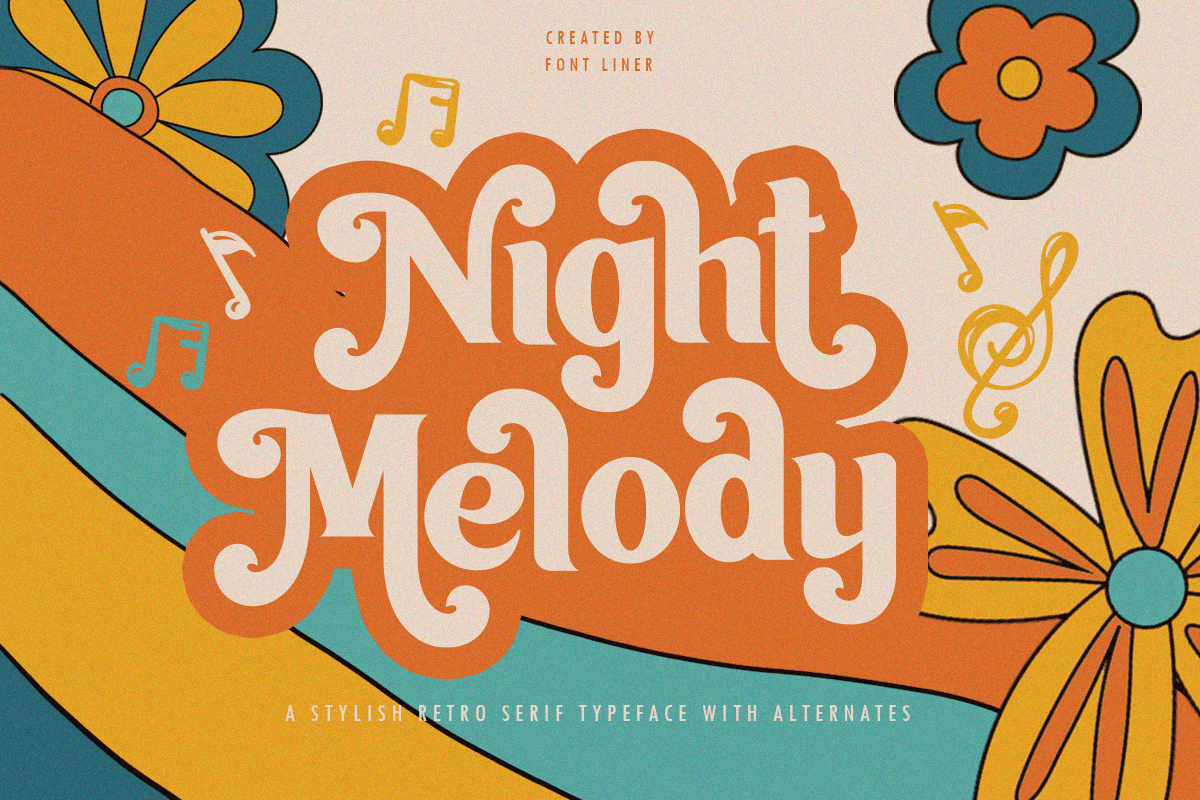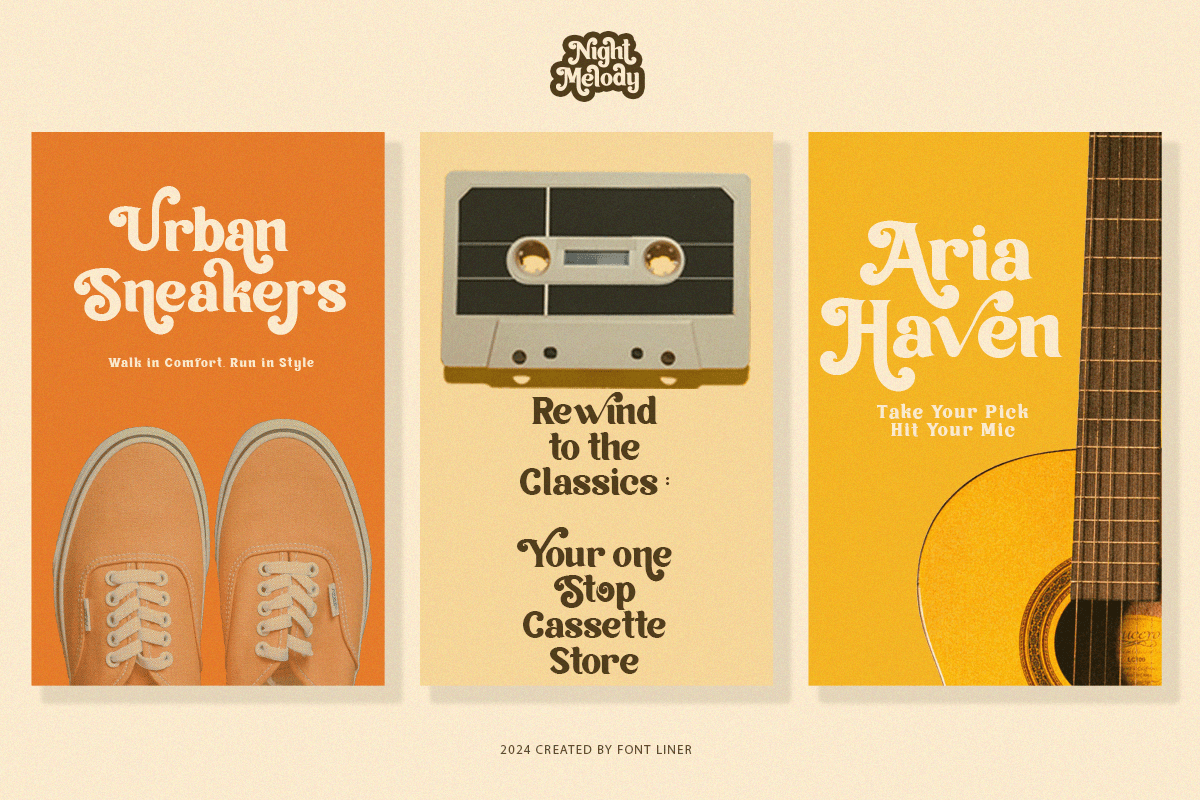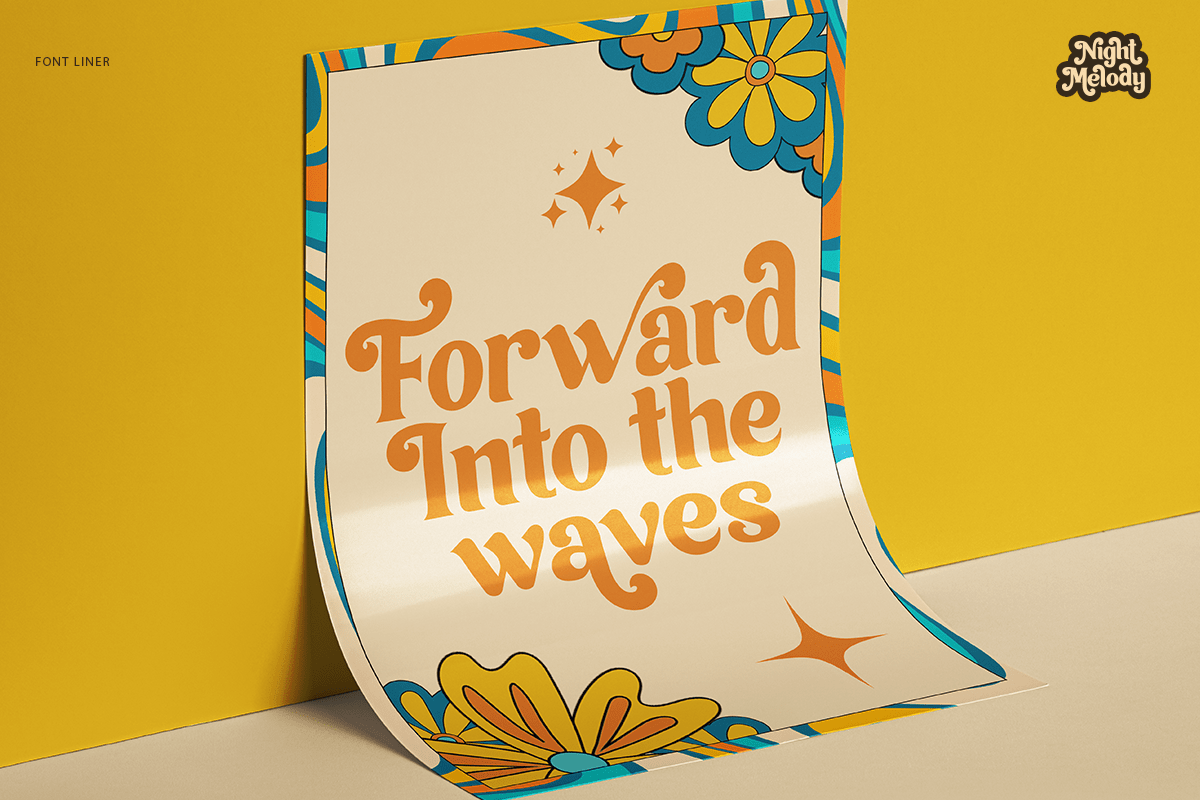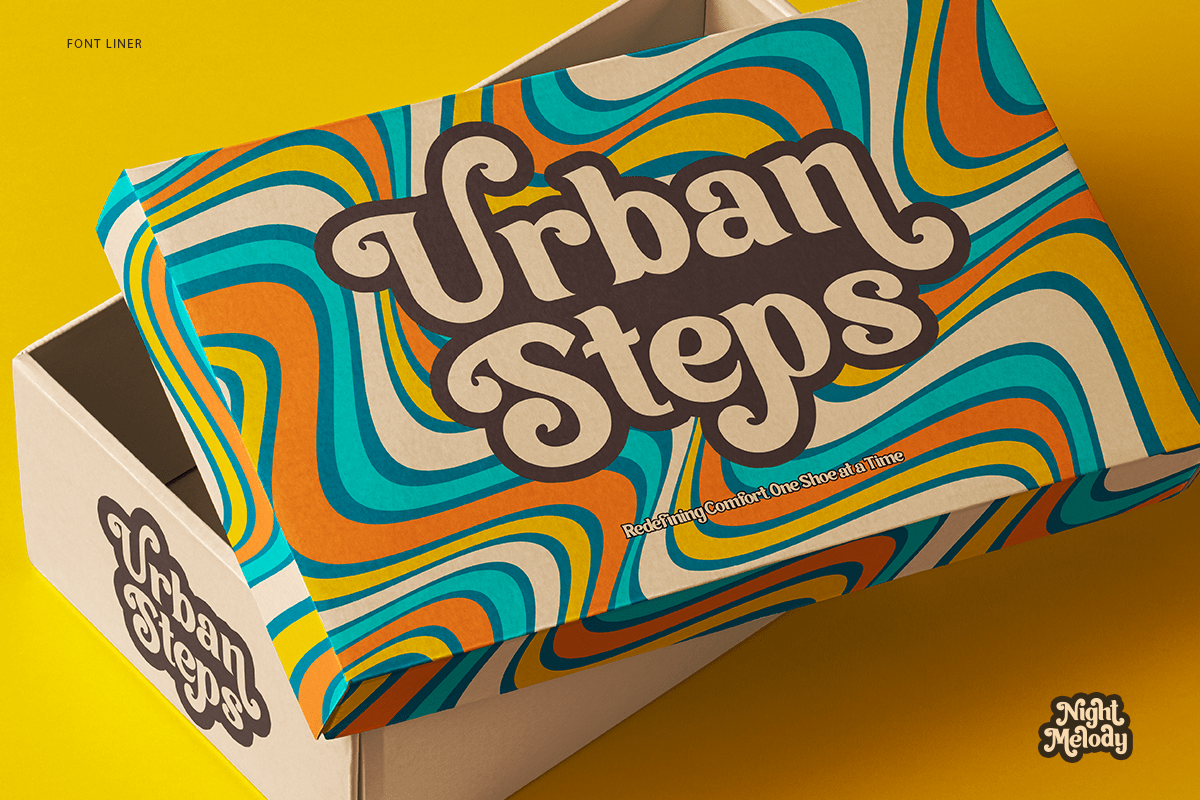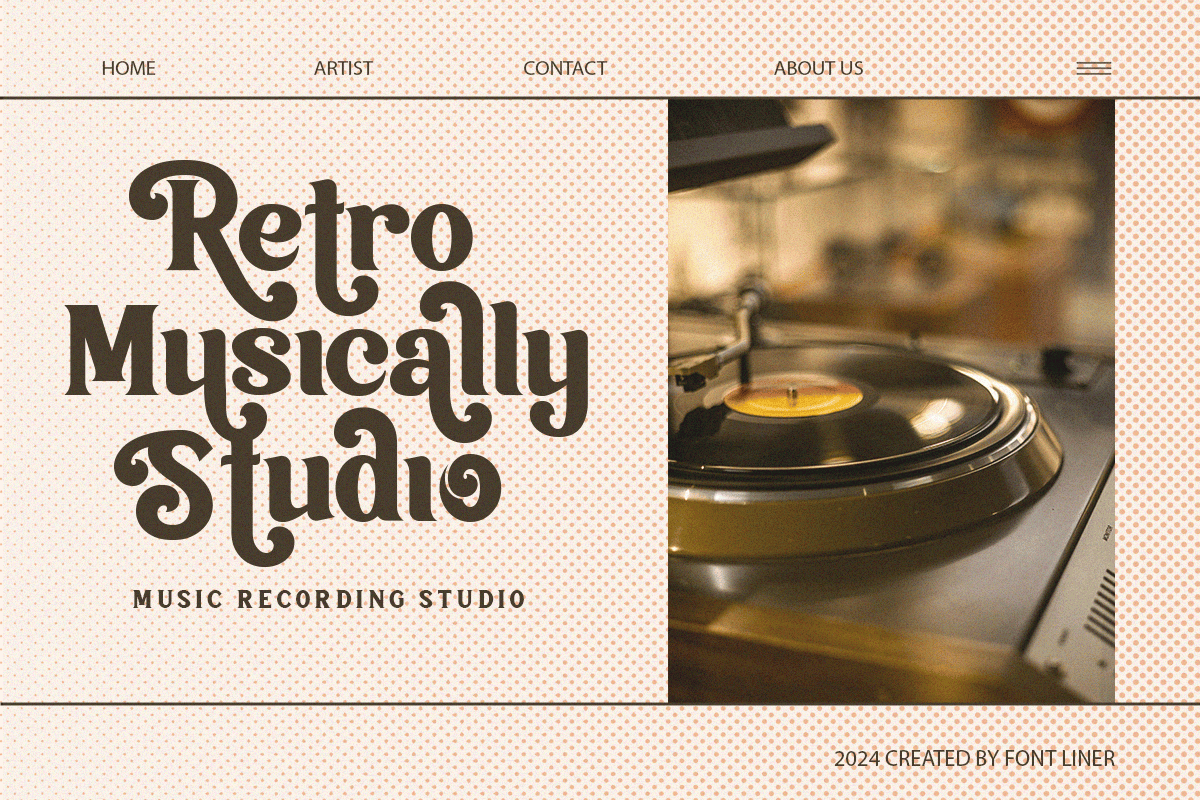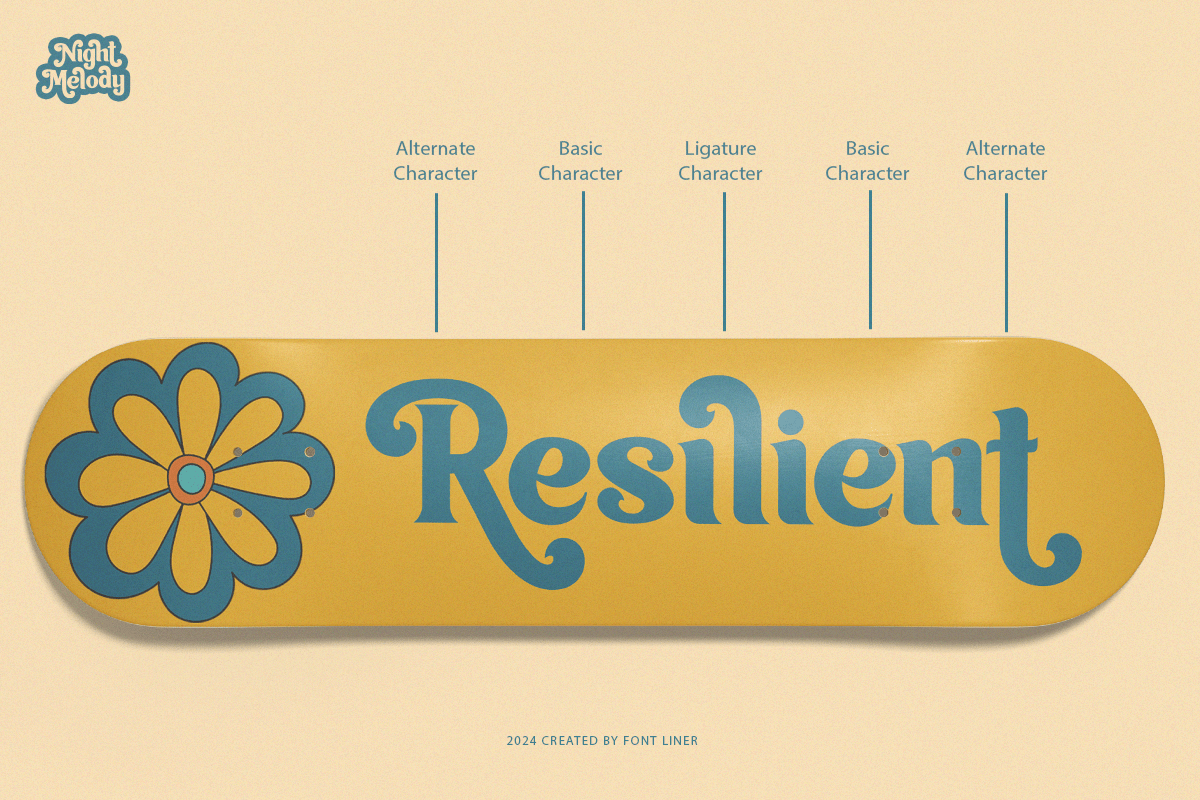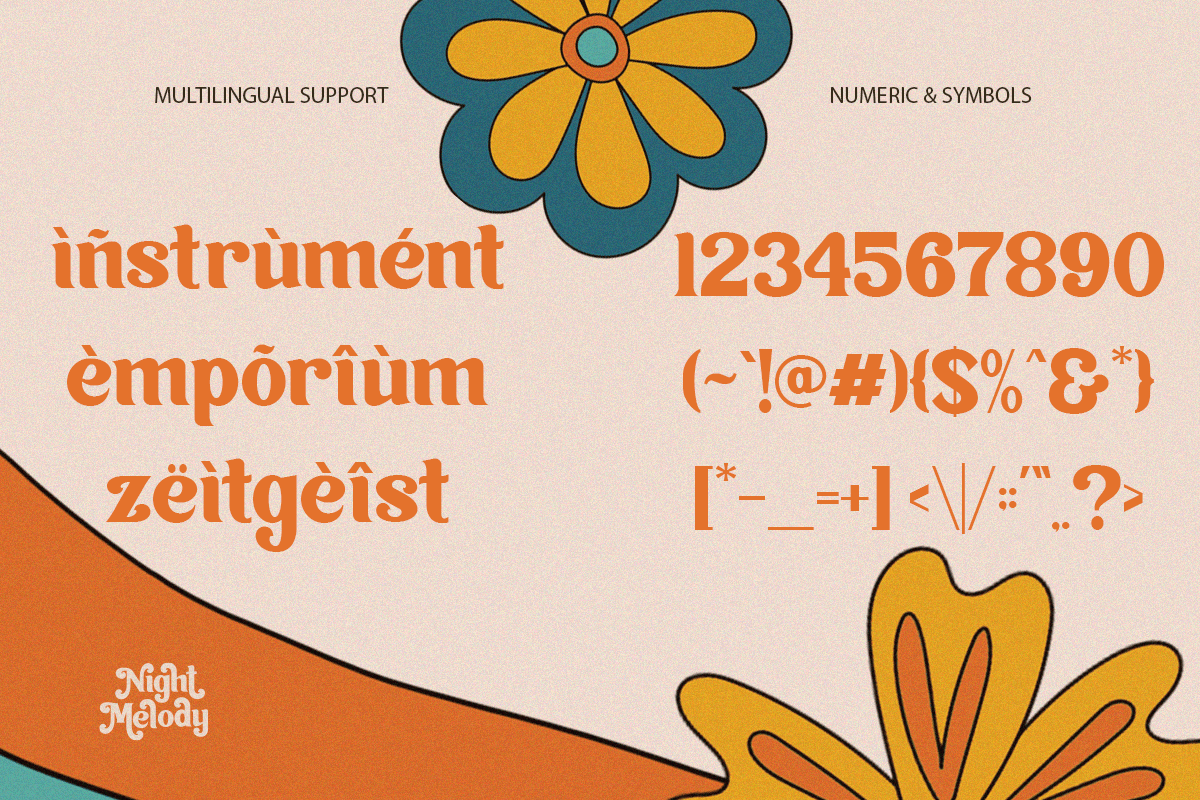
Night Melody – Retro Display Serif Font
Night Melody is a retro display serif font inspired by the vibrant spirit of the 70s, vintage music culture, and psychedelic typography. Featuring bold curvy letterforms, decorative alternates, and expressive retro details, this typeface creates a nostalgic yet fresh visual identity that instantly attracts attention. Its playful personality and handcrafted charm make it ideal for designers who want to bring warmth, creativity, and timeless style into their projects.
Perfect for music branding, posters, album covers, cafés, restaurants, packaging, fashion collections, lifestyle brands, product labels, magazines, social media, event promotions, and editorial layouts, Night Melody delivers striking typography across both print and digital media. Whether you’re designing vintage-inspired logos, colorful packaging, promotional graphics, or eye-catching headlines, this font provides an unforgettable retro aesthetic with modern versatility.
Night Melody includes multiple font styles, decorative alternates, uppercase and lowercase characters, multilingual support, numerals, punctuation, and symbols, giving designers complete creative freedom. From boutique branding and artisan packaging to retro advertising campaigns and modern editorial projects, Night Melody is the perfect display serif font for creating bold, nostalgic, and expressive typography.
– Stylistic alternates
– Uppercase, Lowercase & Ligatures